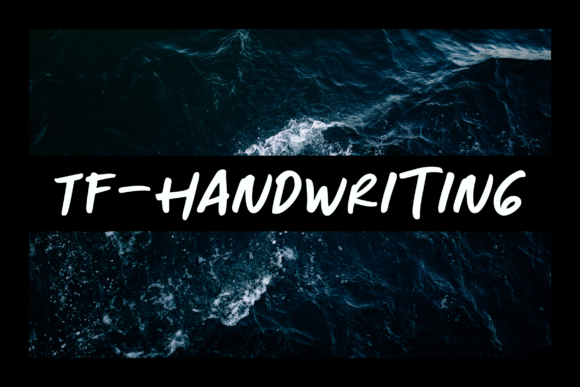
Journey into the world of authenticity and creative freedom with TF Handwriting Font, the masterpiece inspired by the elegance of handwritten notes. This script font, brought to life by Fontdation, captures the beauty of genuine penmanship, transforming your digital creations into captivating works of art.
With its delicate strokes and lifelike flow, TF Handwriting Font dances across the screen, evoking a sense of intimacy and personalization. Its graceful curves and organic imperfections lend a human touch to your designs, drawing your audience into a world of sincerity and authenticity.
Whether you're a designer seeking to add a touch of individuality to your projects or a creative spirit yearning to express yourself in a unique way, TF Handwriting Font is your perfect companion. Its versatility knows no bounds, lending itself effortlessly to a myriad of applications.
Craft heartfelt invitations, greeting cards, and social media posts that resonate with your audience on a personal level. Design eye-catching logos, branding materials, and website elements that exude a distinct and memorable charm. Transform your presentations, flyers, and brochures into captivating visual experiences that leave a lasting impression.
The possibilities are endless with TF Handwriting Font. Its ability to capture the essence of handwritten communication makes it the ideal choice for adding a personal touch to any project. Embrace the beauty of imperfection and authenticity, and let your creativity flow freely with this remarkable font.
In a world saturated with digital perfection, embrace the allure of the handwritten with TF Handwriting Font. Allow your designs to speak from the heart, connecting with your audience on a deeper level. Indulge in the joy of authentic expression and let your creativity flourish.